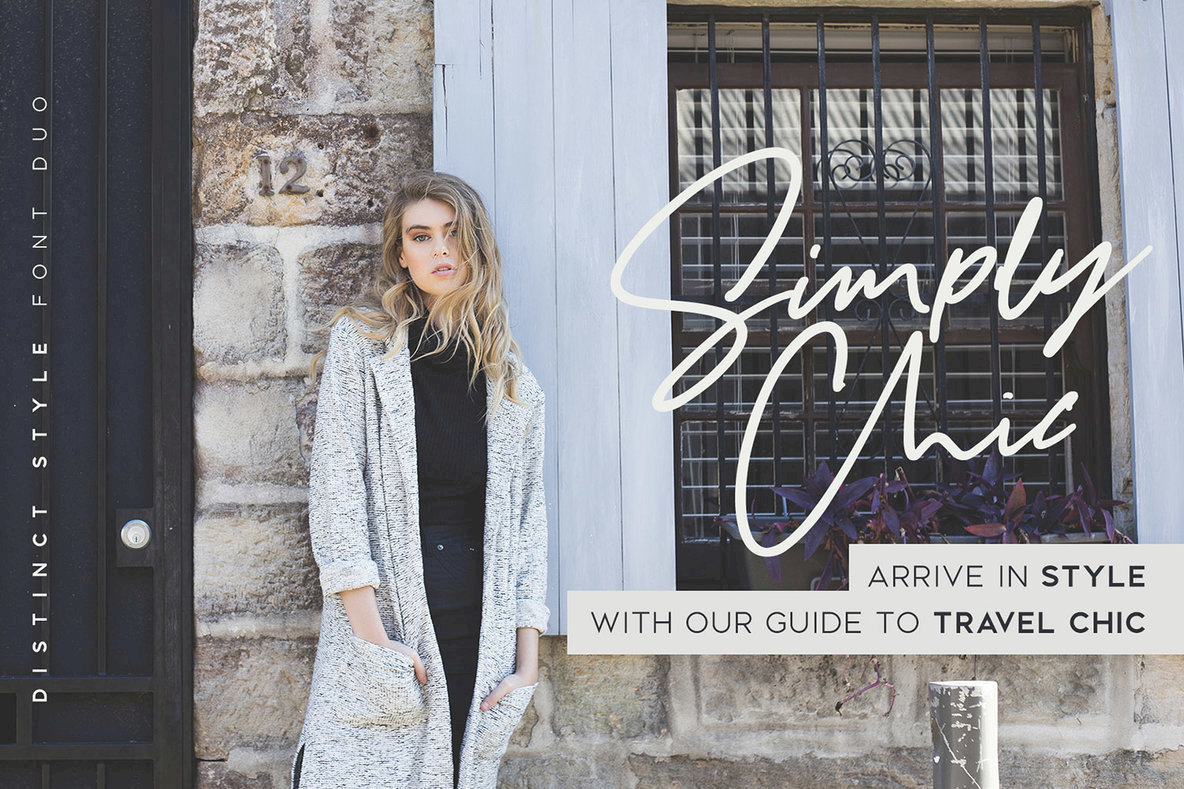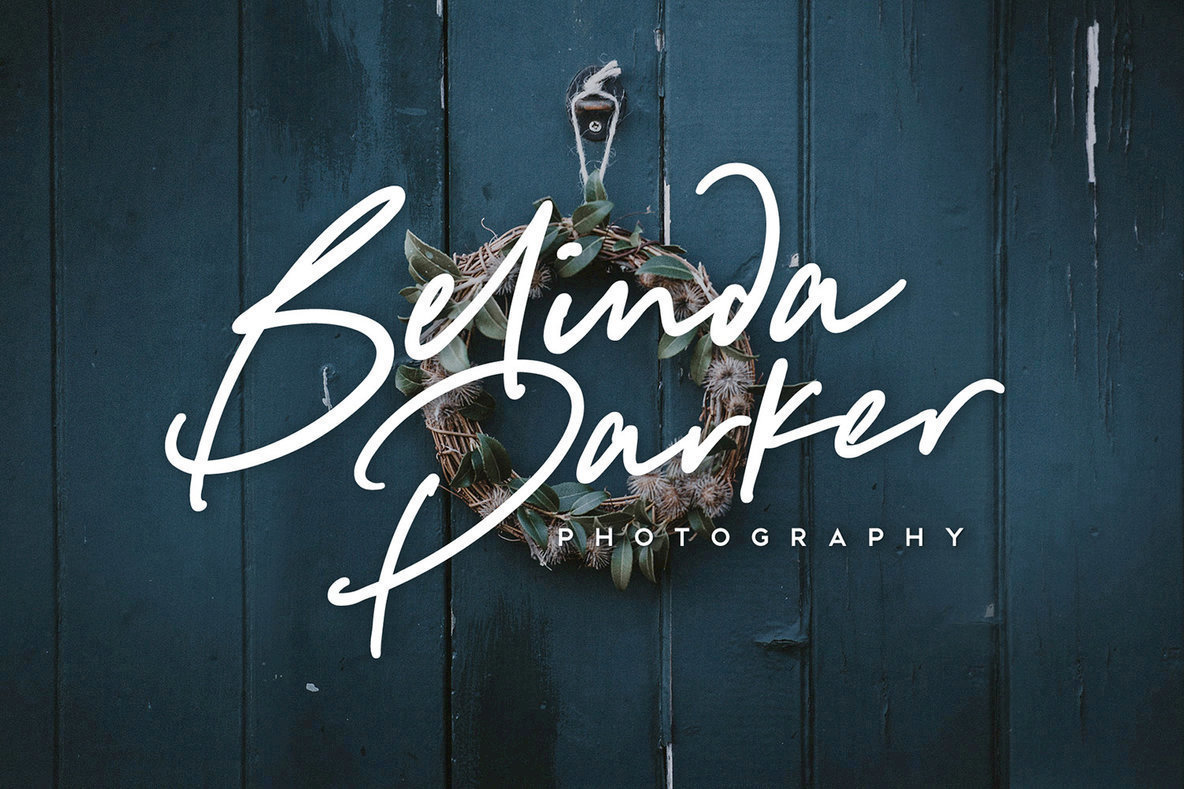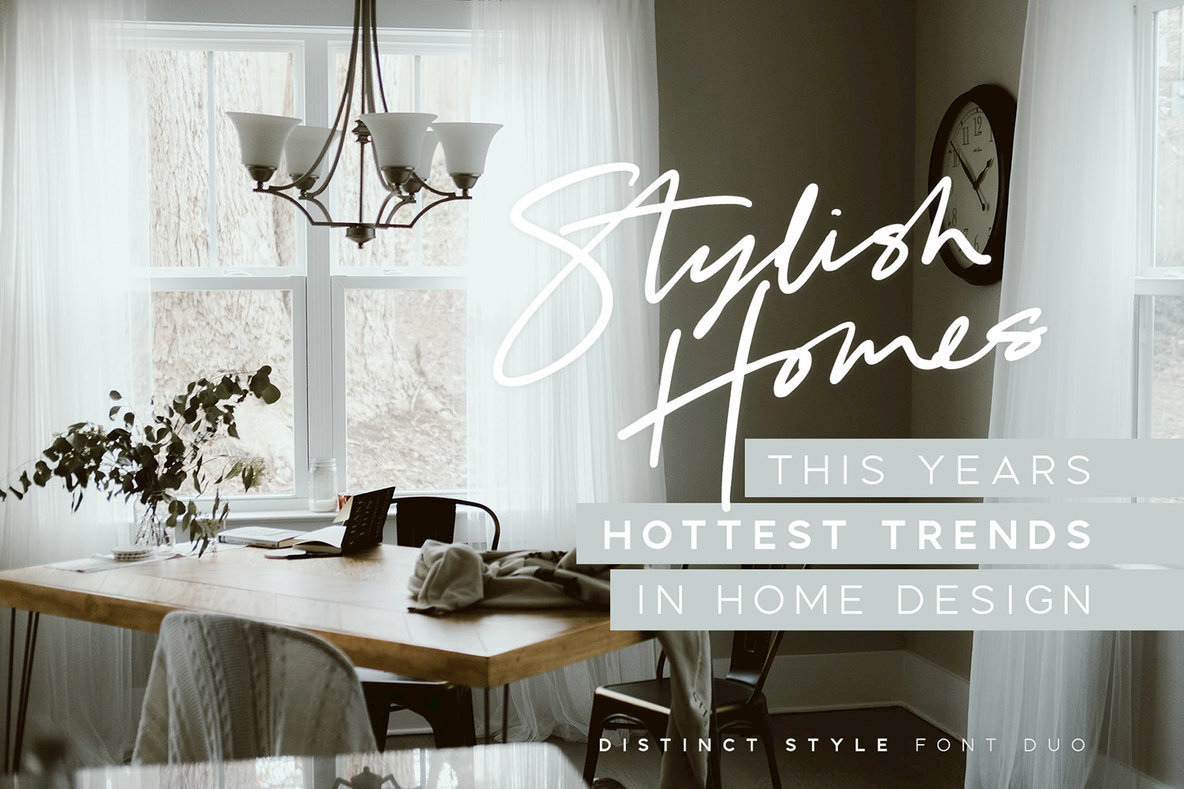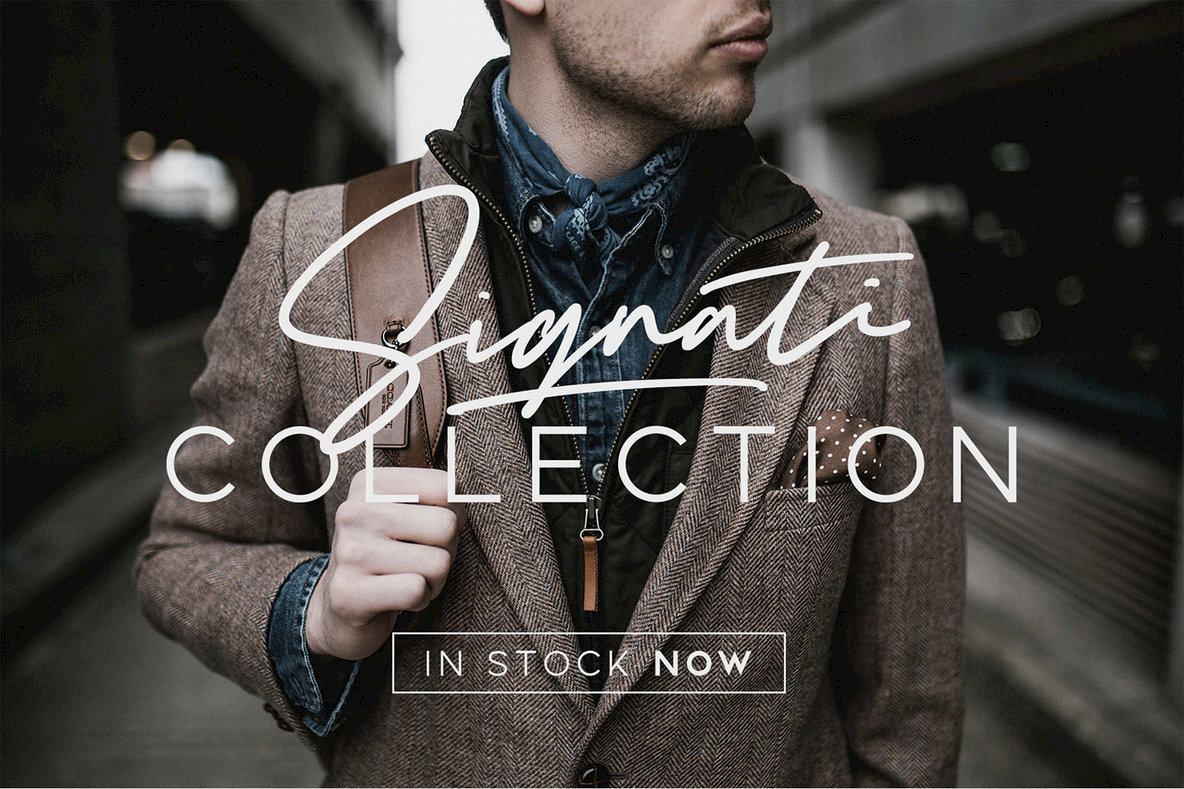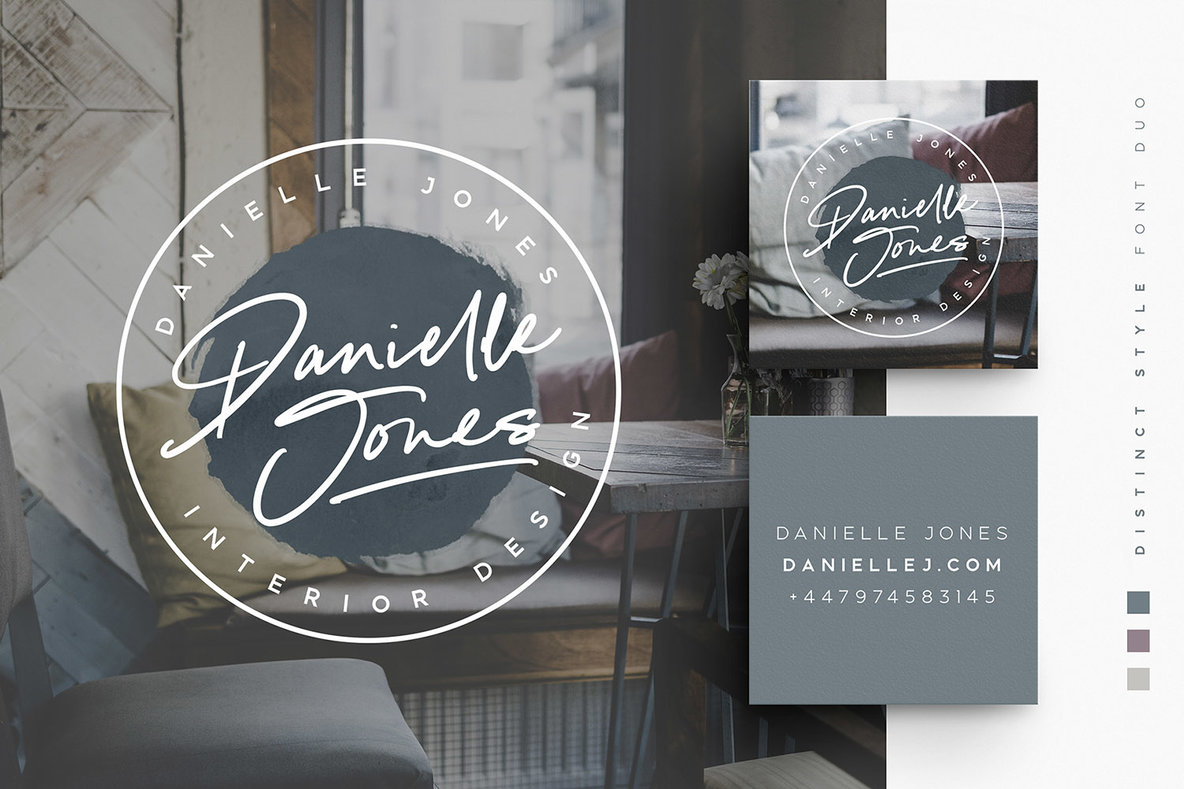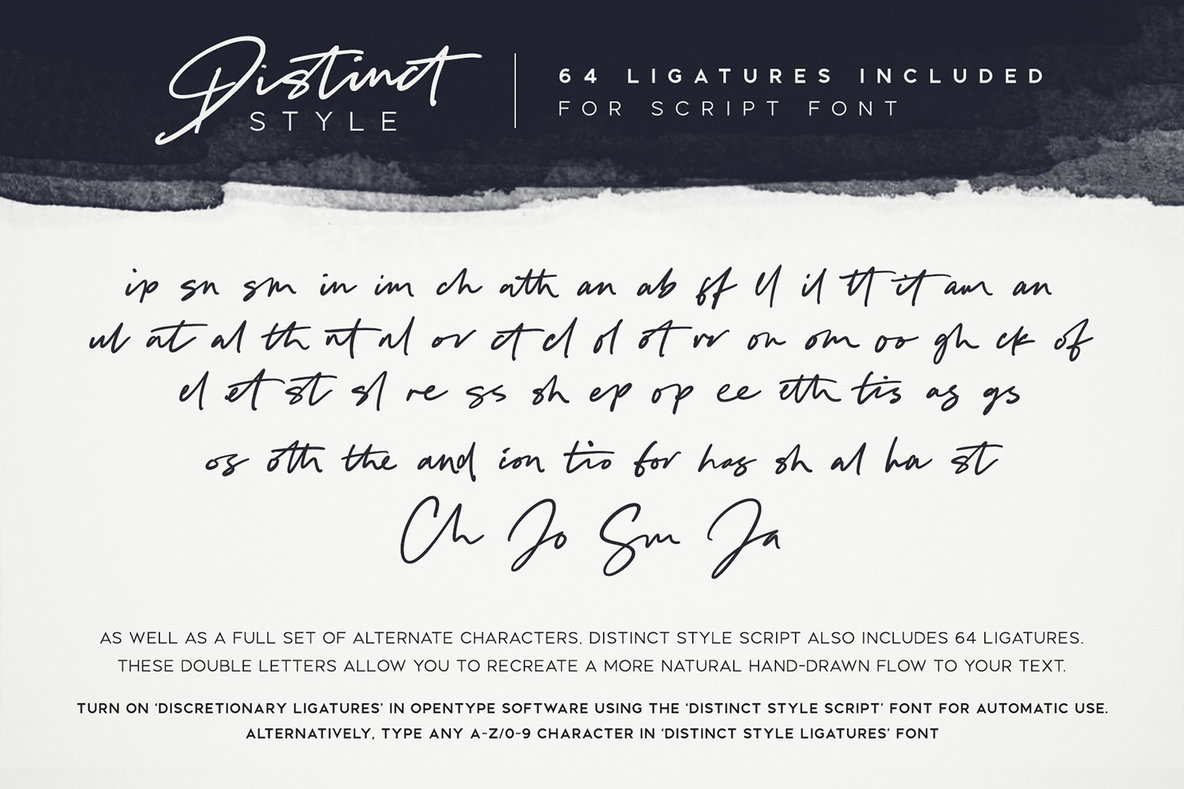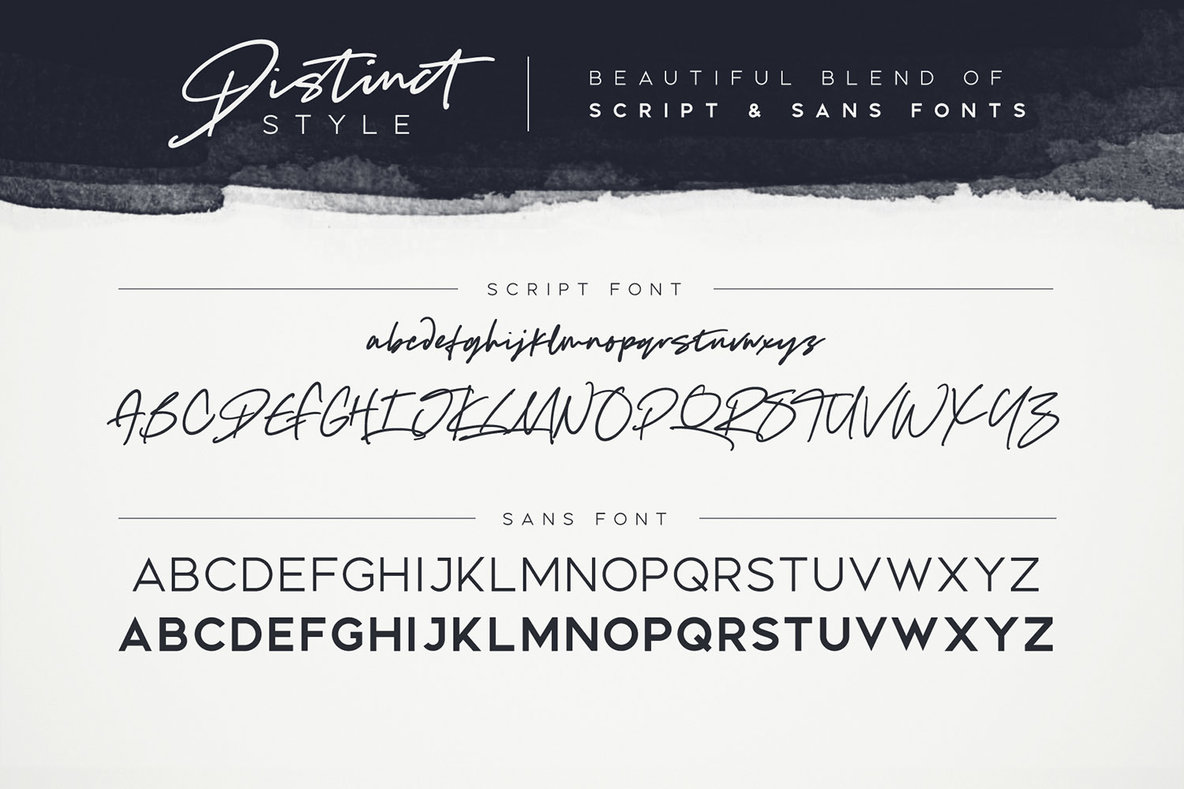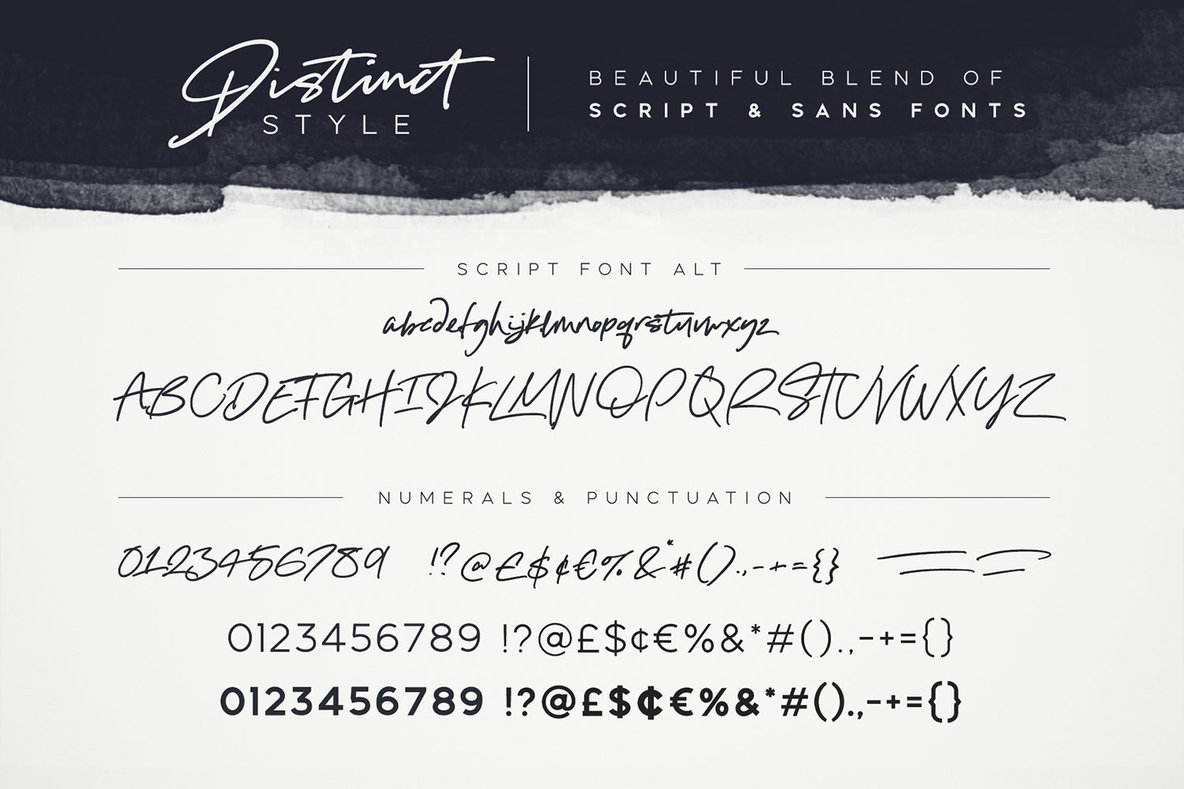
Distinct Style Font Duo
Get stylish with Distinct Style, a fashionable and contemporary pair of signature & sans fonts designed to perfectly compliment one another. With a fast-flowing script font and a two-weight modern sans serif, the Distinct Style duo offers typographic harmony for your professional design projects, including; logos, branding, magazines, blog posts, social media, advertisements & product designs.
1. Distinct Style Script • A classy fast-flowing signature font containing upper & lowercase characters, numerals and a large range of punctuation.
2. Distinct Style Script Alt • This is a second version of Distinct Style Script, with a completely new set of upper & lowercase characters. If you wanted to avoid letters looking the same each time to recreate a custom-made style, or try a different word shape, simply switch to this font for an additional layout option.
3. Distinct Style Sans Light • A stylish, modern sans-serif font containing uppercase only characters, numerals and a large range of punctuation. Creates a perfect pairing contrast with the Disticnt Style Script fonts.
3. Distinct Style Sans Bold • A bolder version of the Distinct Style Sans font. Add some contrast to your text by pairing this with the Sans Light version, or use at smaller sizes.
4. Distinct Style Ligatures • Simply type any a-z, A-Z, or 0-9 character in this font to generate a ligature, if you are unable to access them with opentype software. (If you have opentype software, 'Discretionary Ligatures' can be turned on for the Distinct Style Script fonts, which will automatically switch standard letter pairs into the provided ligatures). Distinct Style Ligatures also contains 4 swashes assigned to the following keys; [ ] { }